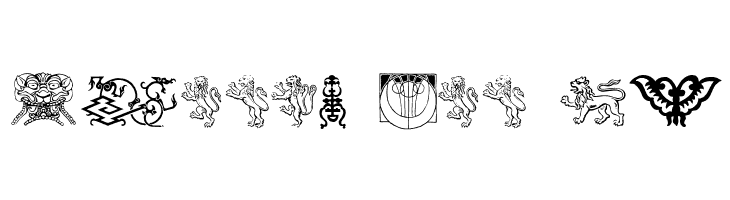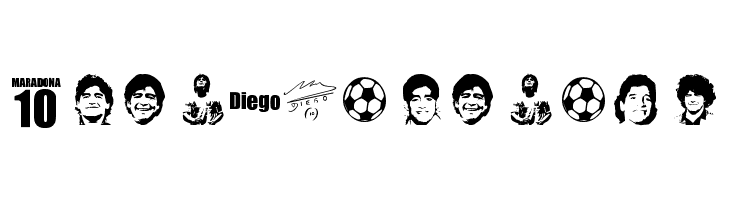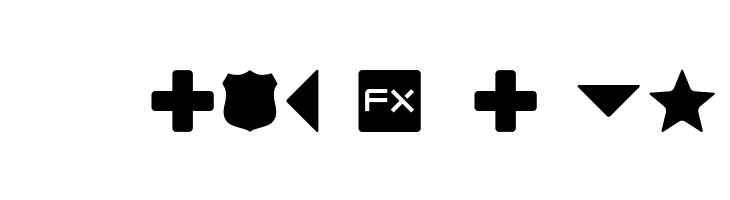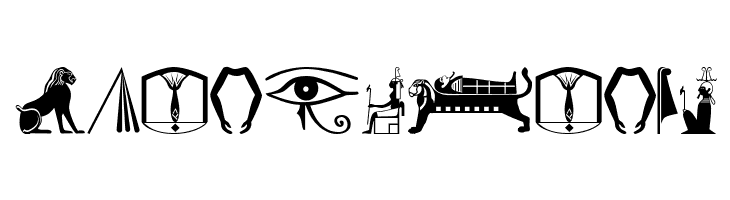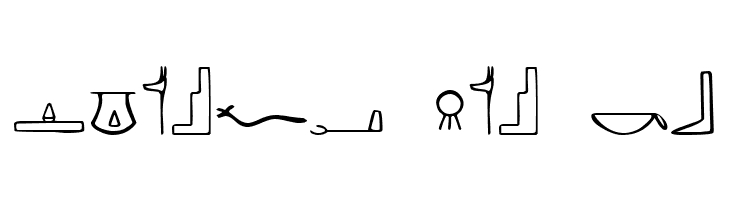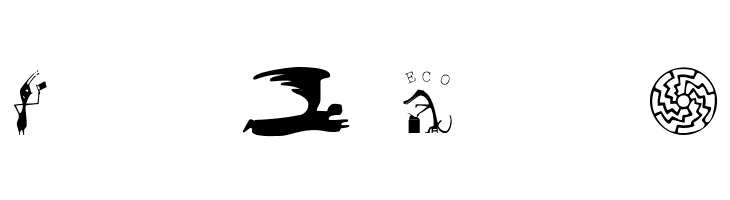
A diverse icon set featuring global cultural and symbolic motifs.
A bold, sports-themed decorative font with illustrated icons and blocky numerals.
Illustrative font with each character depicted as a unique monument, symbol, or figure.
A pictorial font using stylized portraits for each character.
Ancient Egyptian-inspired decorative glyph set.